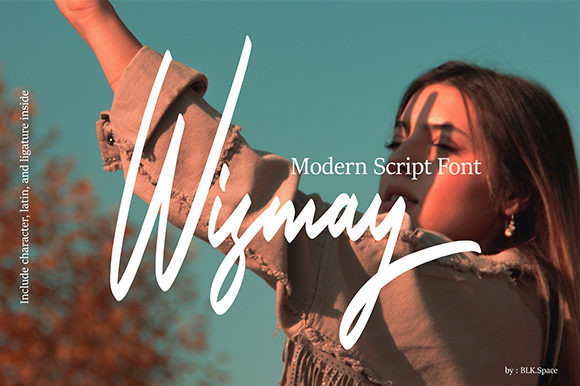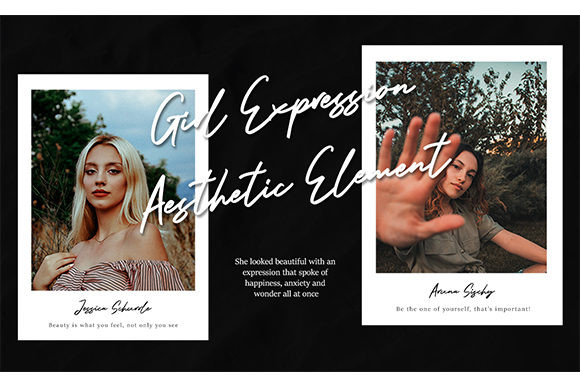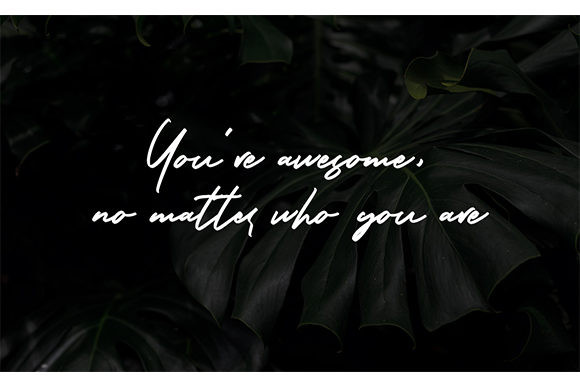
Wismay Font
Wismay is a classy script font. It includes ligatures and a flowing style. It will elevate a wide range of design projects to the highest level, be it branding, headings, wedding designs, invitations, signatures, logos, labels, and much more!